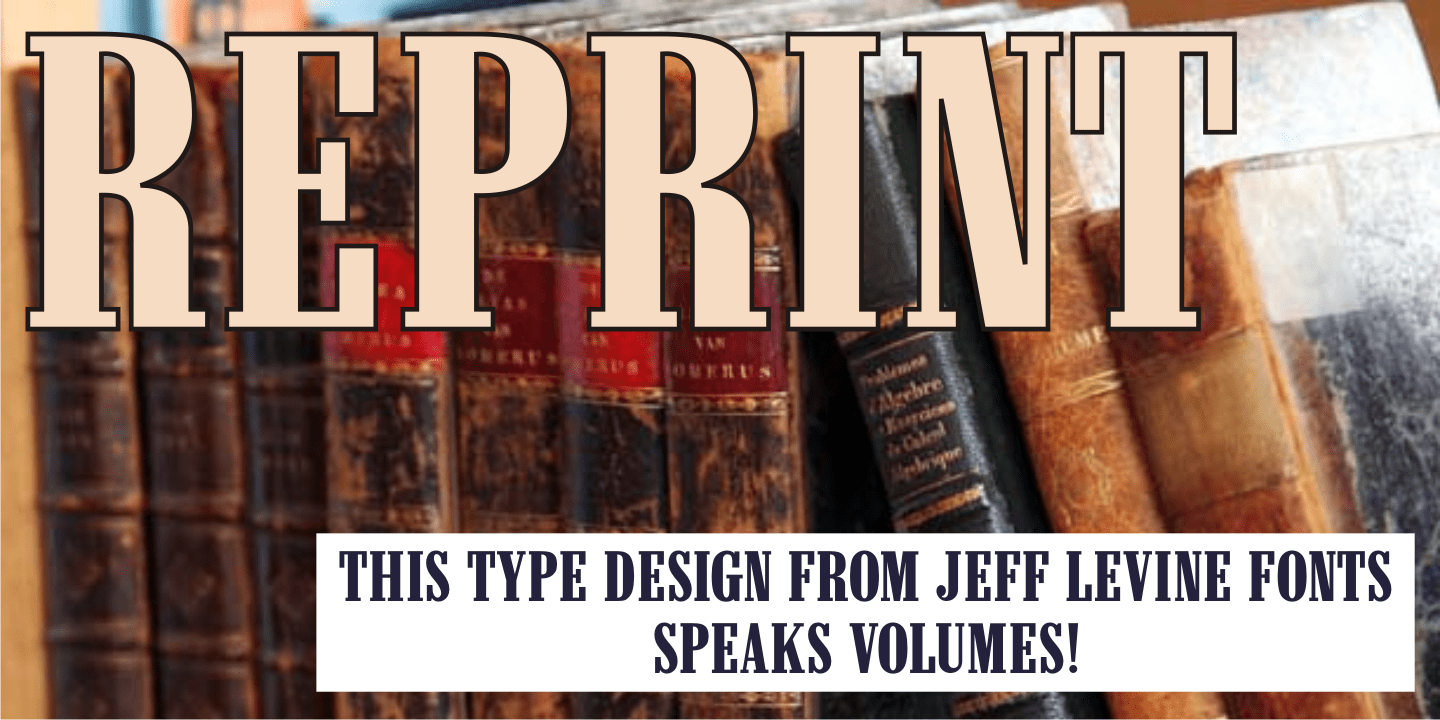
Reprint
Inspired by a bold serif typeface used popularly in the 1960s, Reprint JNL is perfectly adept for handling any titling needs and will get the point across in short order.